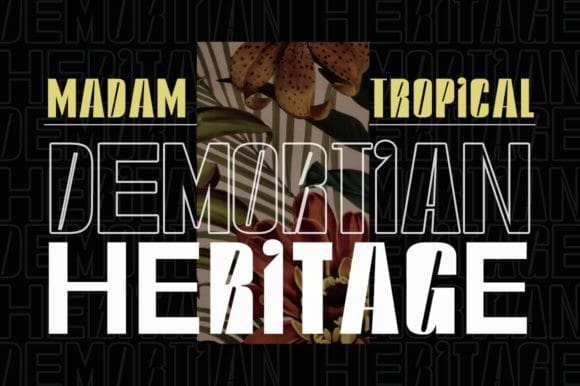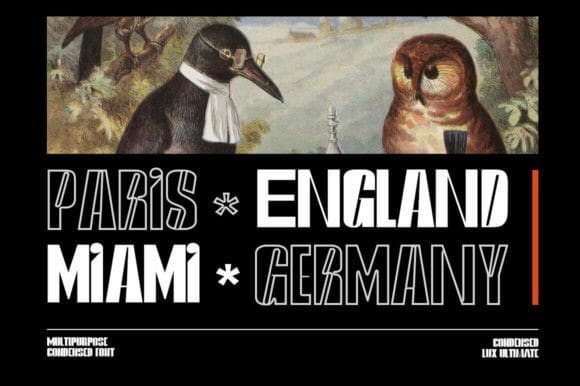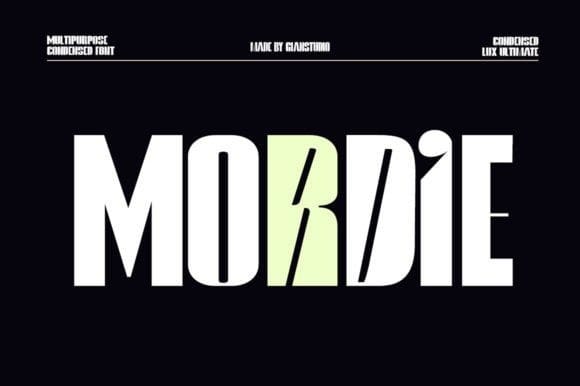
Mordie Font
Mordie Font is suitable for logos, branding, greetings, themes, screen printing, social media and wedding invitation designs. It is also a great typeface for titles because of its unique design and attractive appearance.